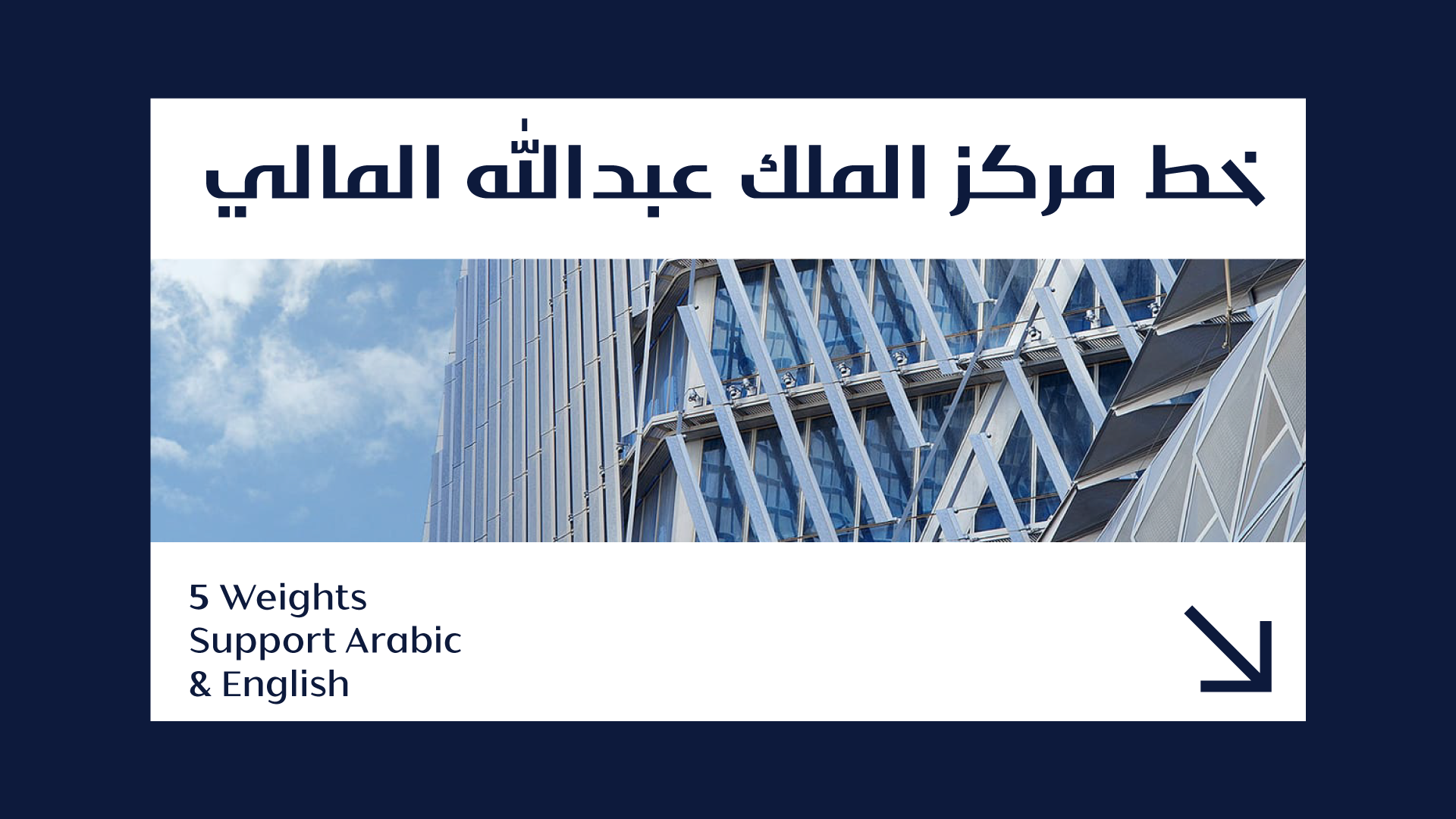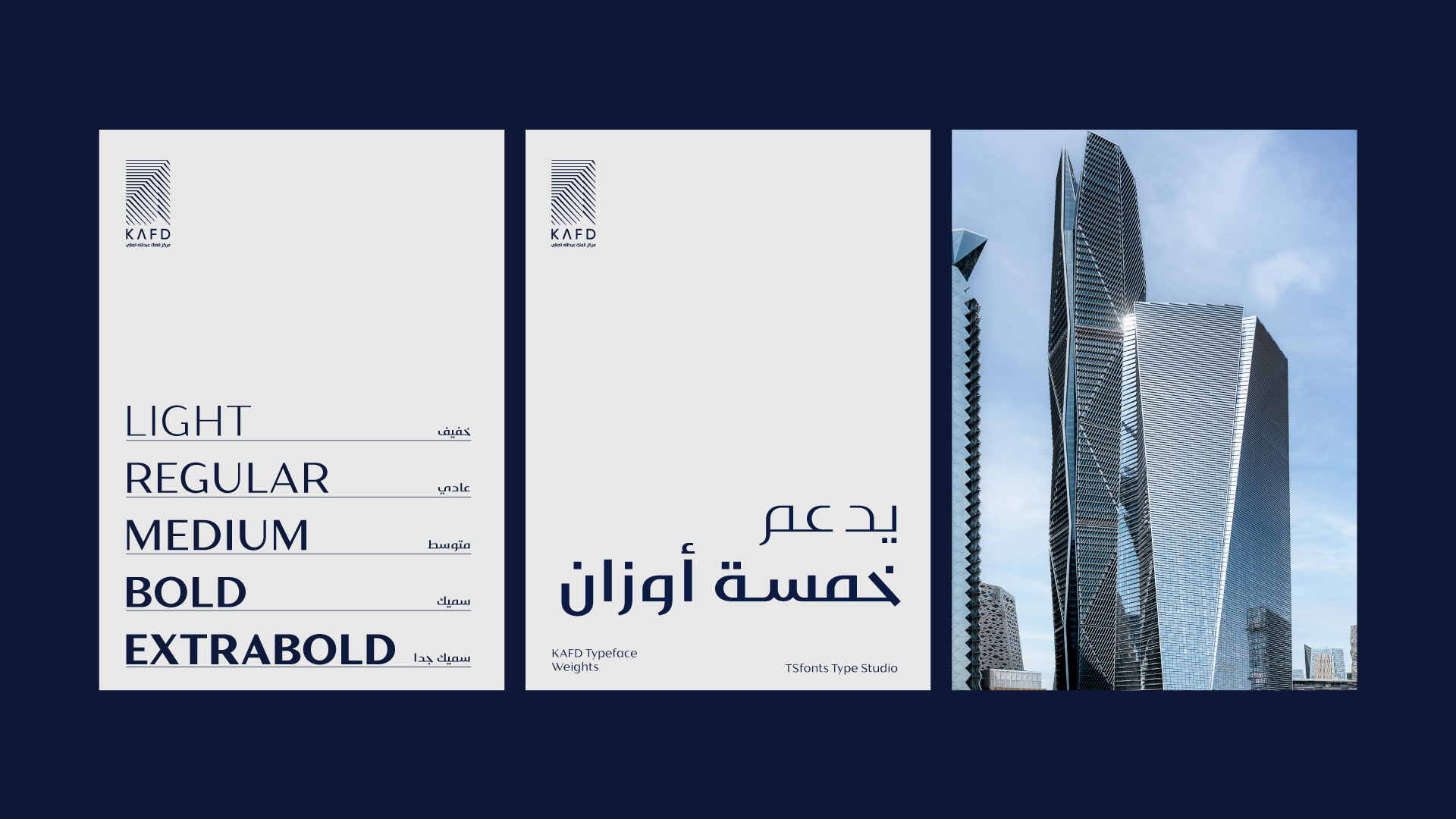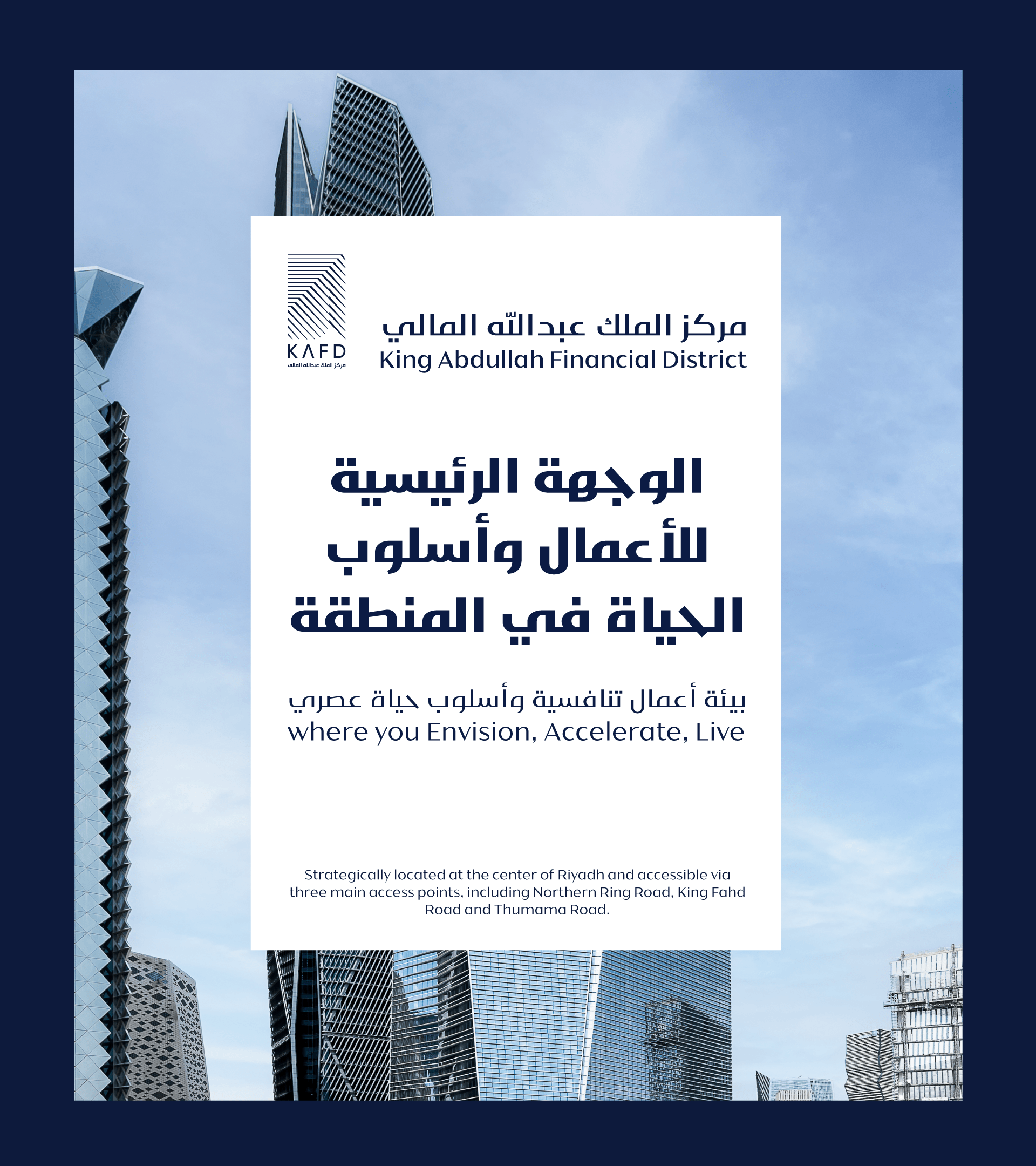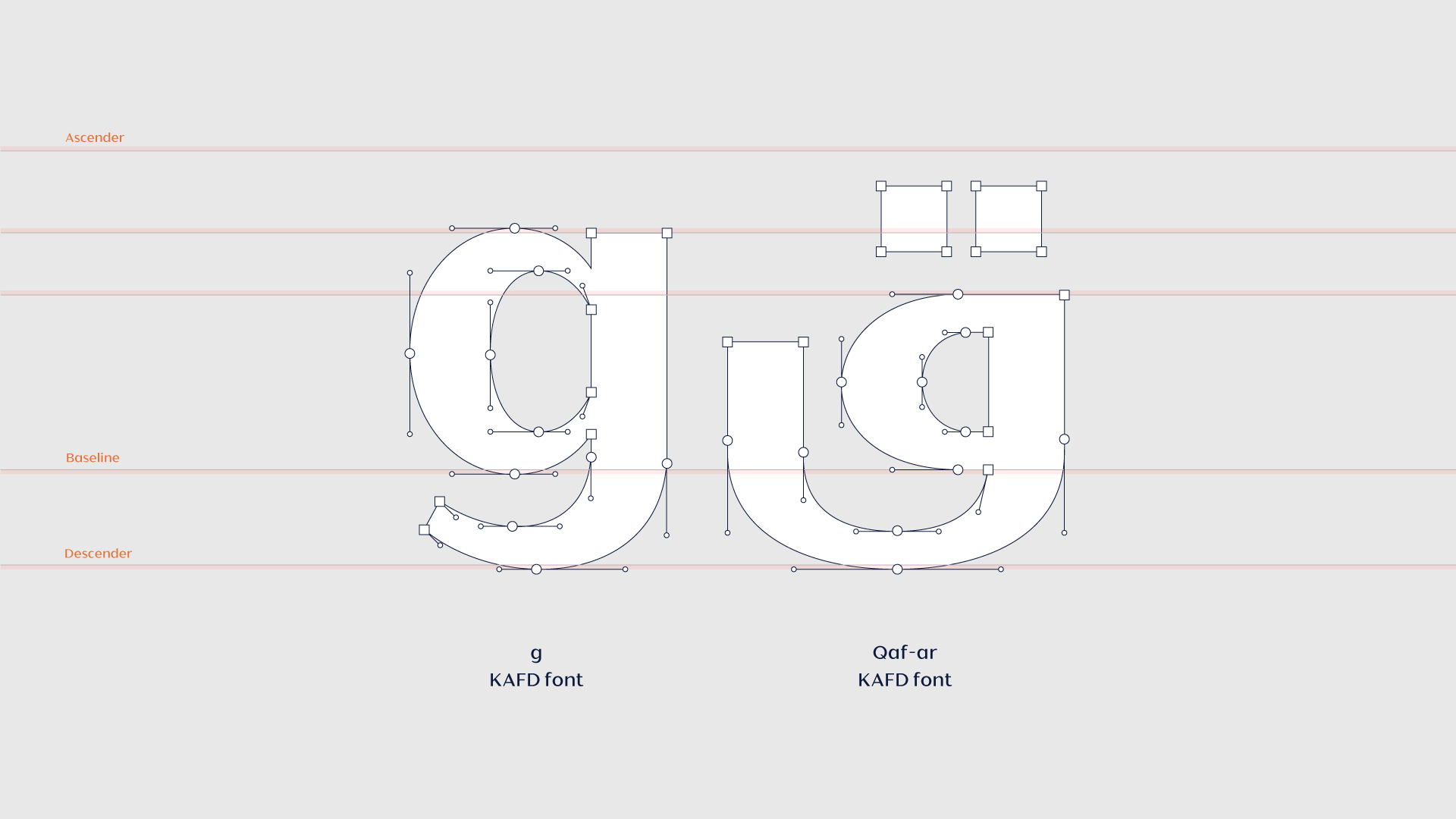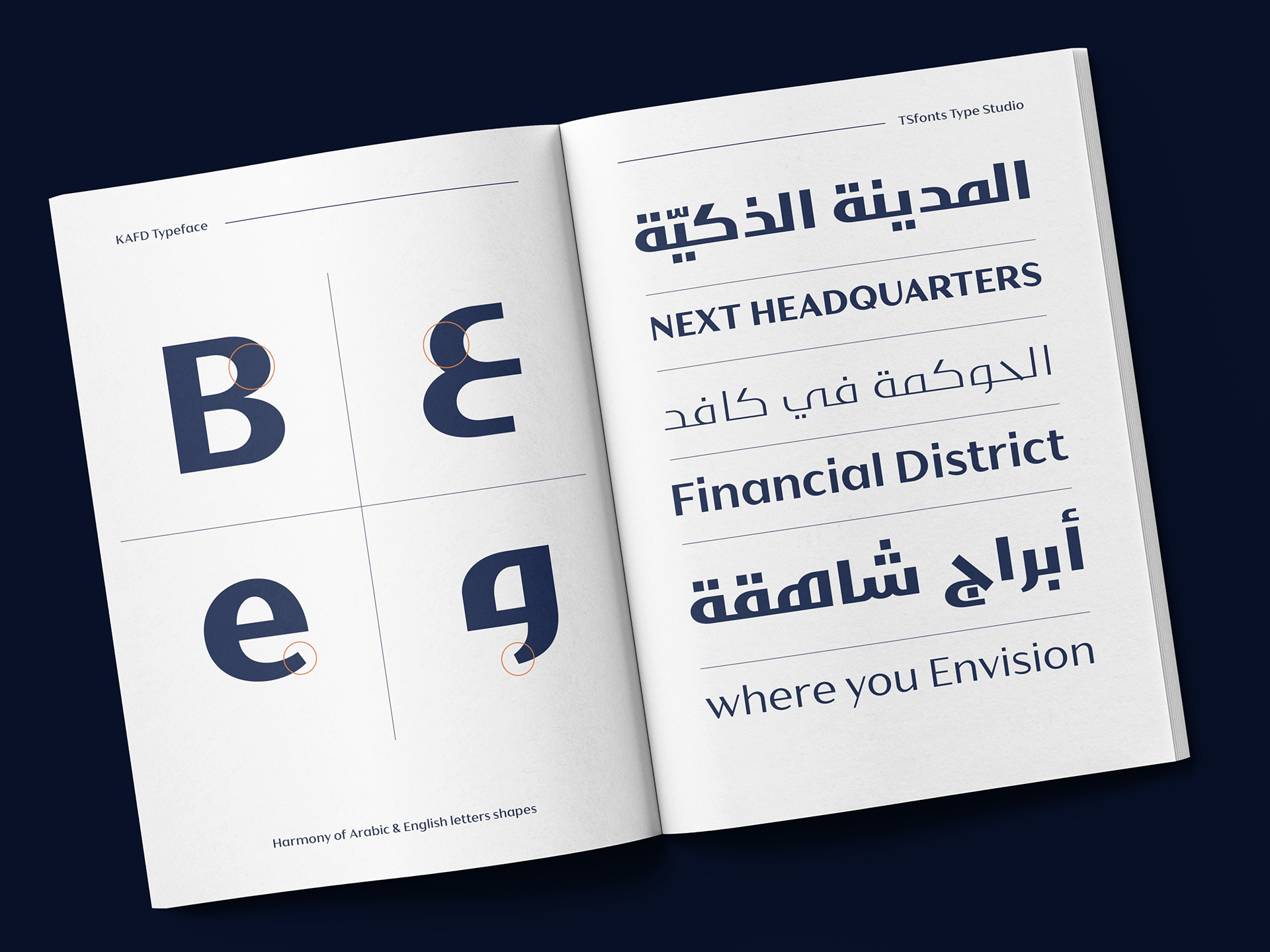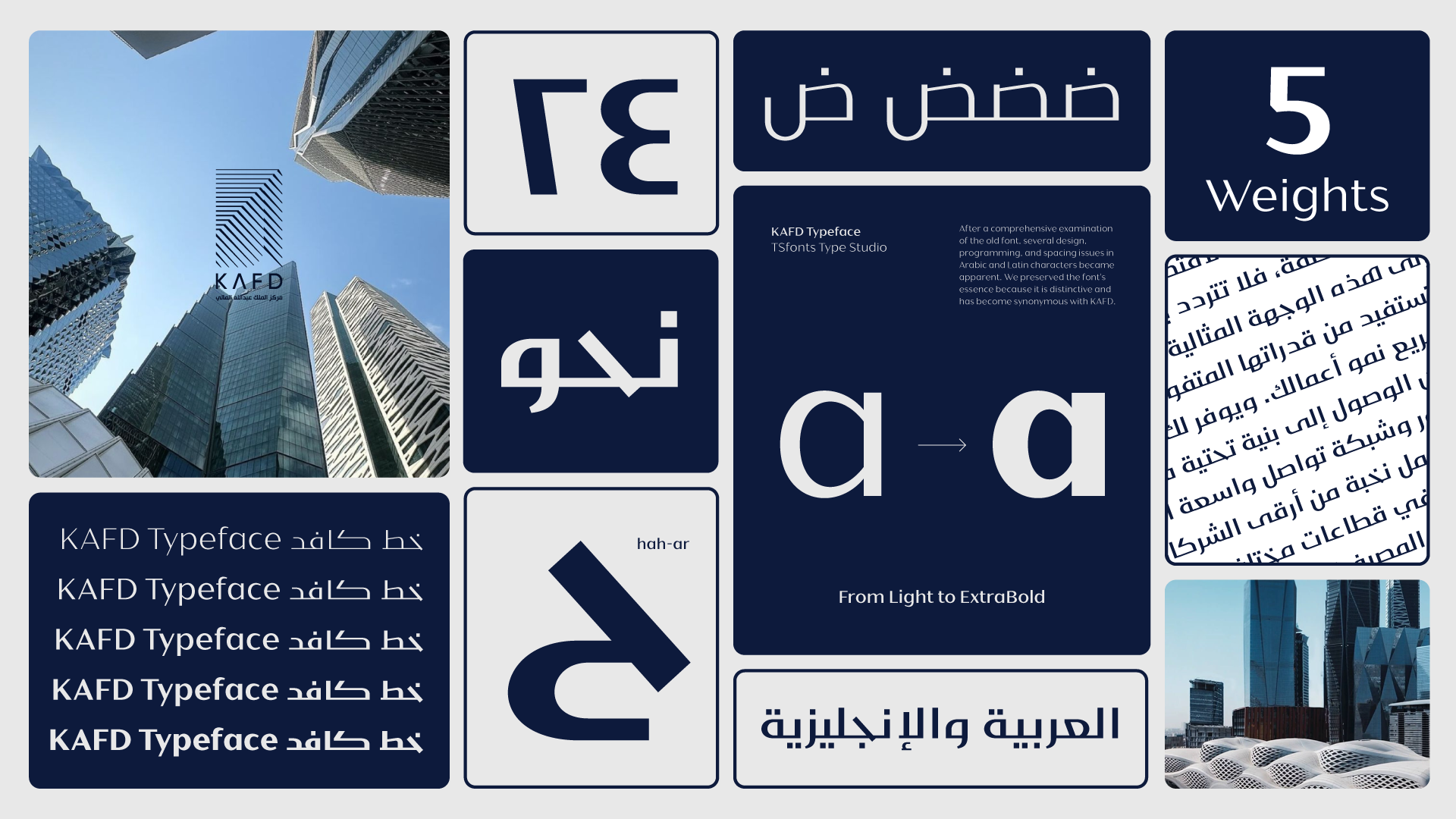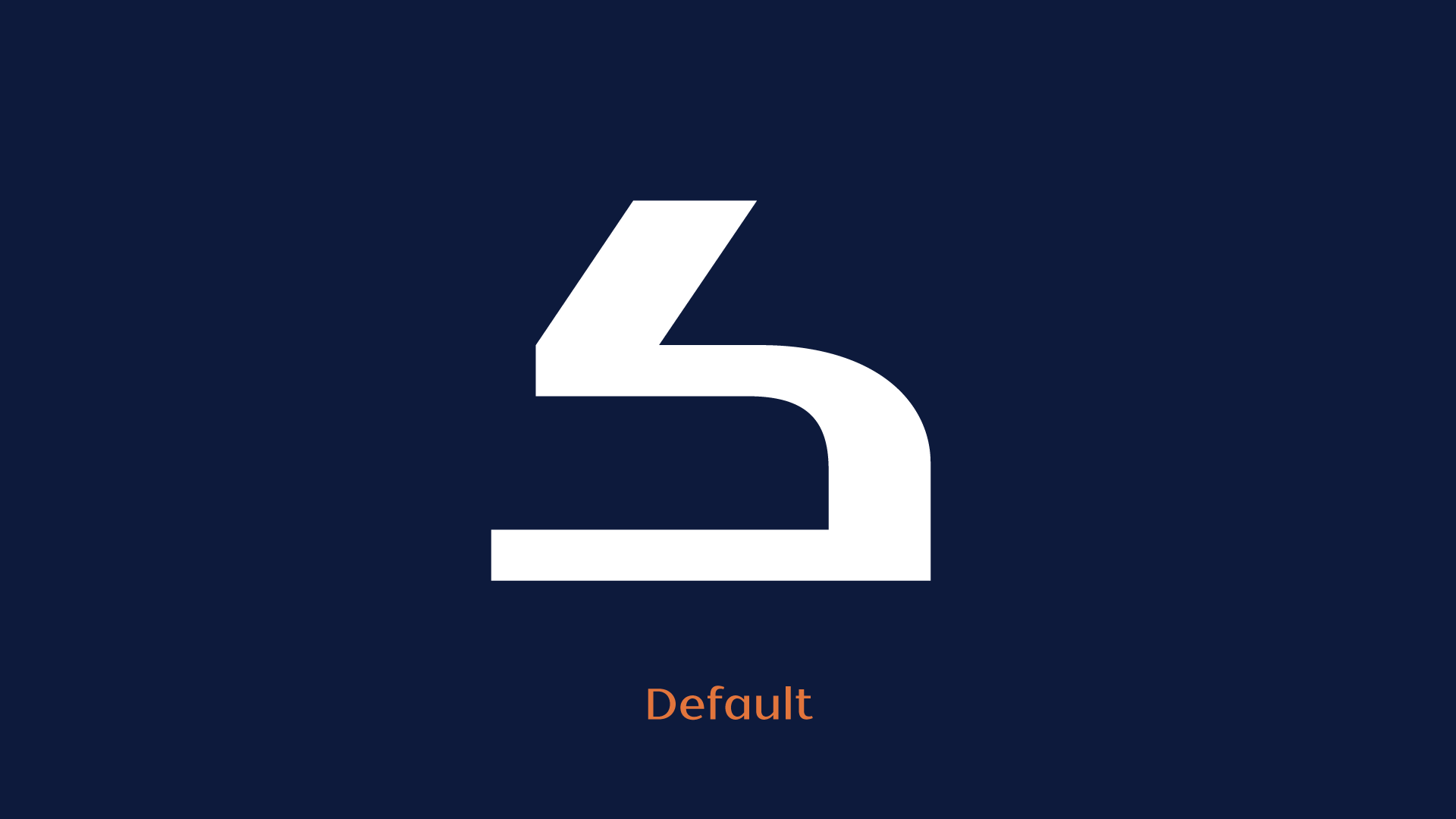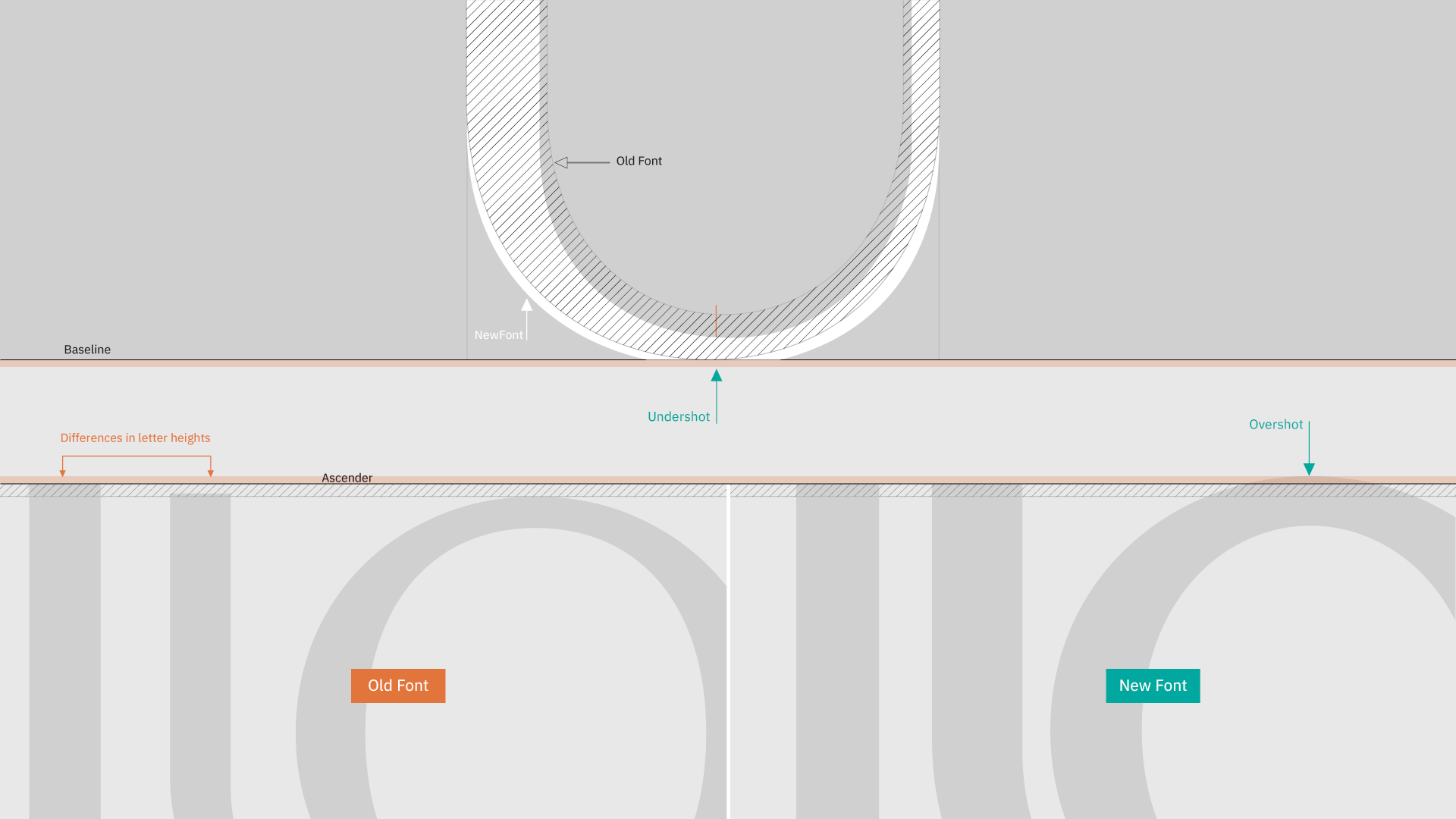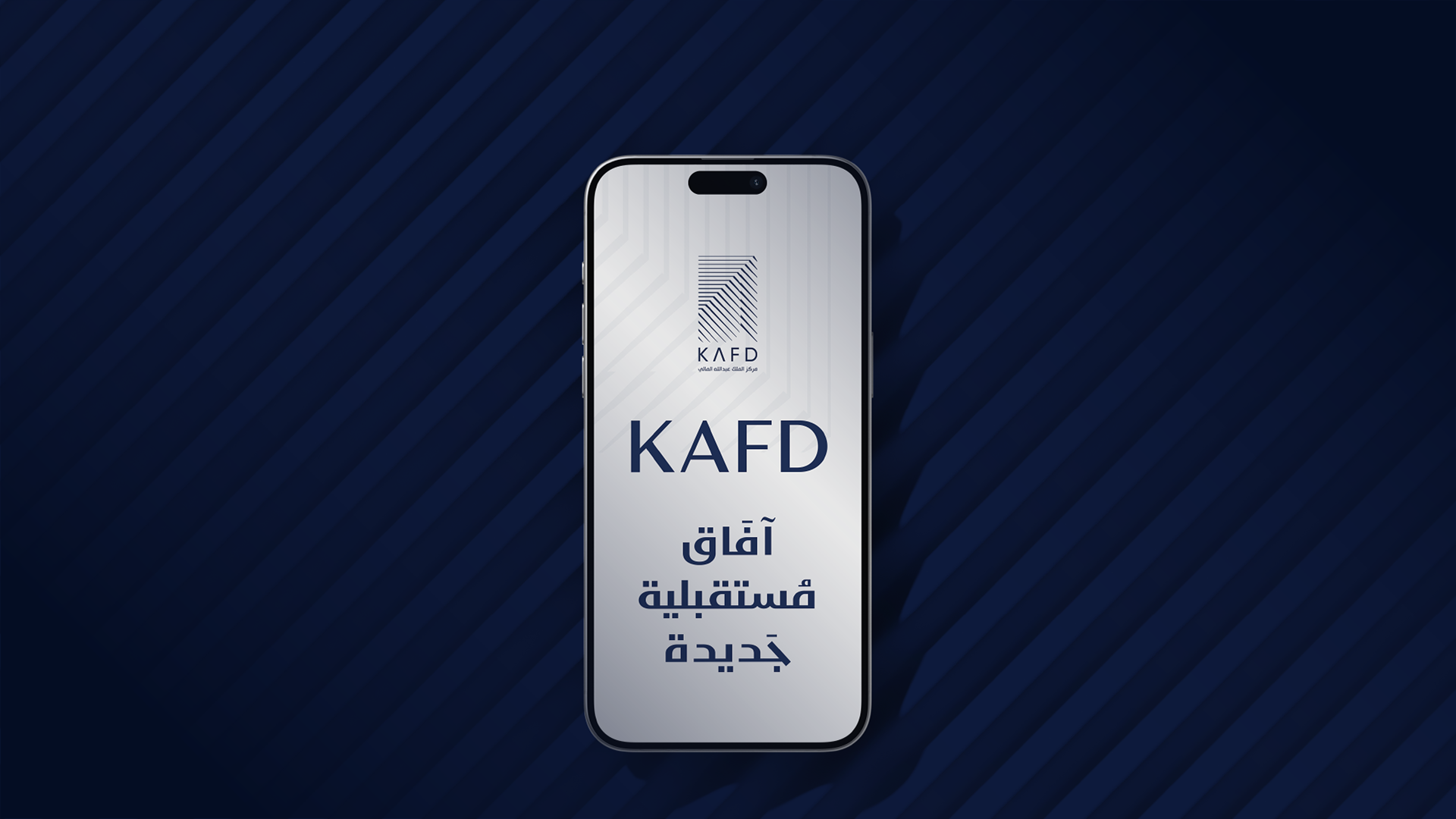
After a comprehensive examination of the old font, several design, programming, and spacing issues in Arabic and Latin characters became apparent. We preserved the font’s essence because it is distinctive and has become synonymous with KAFD.
In response, we comprehensively rebuilt the KAFD font from the ground up. During this process, we carefully preserved the font’s unique personality and stylistic elements that made it stand out. However, we significantly improved the letterforms, refined the spacing, and resolved all programming issues to ensure the font performs flawlessly across different platforms and environments. The result is a modern, polished typeface that retains the essence of its original design while offering enhanced usability and visual harmony for both Arabic and Latin.
The KAFD font is a sans-serif typeface inspired by the Kufic style of its Arabic letterforms. It supports both Arabic and Latin languages and has five weights.
In response, we comprehensively rebuilt the KAFD font from the ground up. During this process, we carefully preserved the font’s unique personality and stylistic elements that made it stand out. However, we significantly improved the letterforms, refined the spacing, and resolved all programming issues to ensure the font performs flawlessly across different platforms and environments.